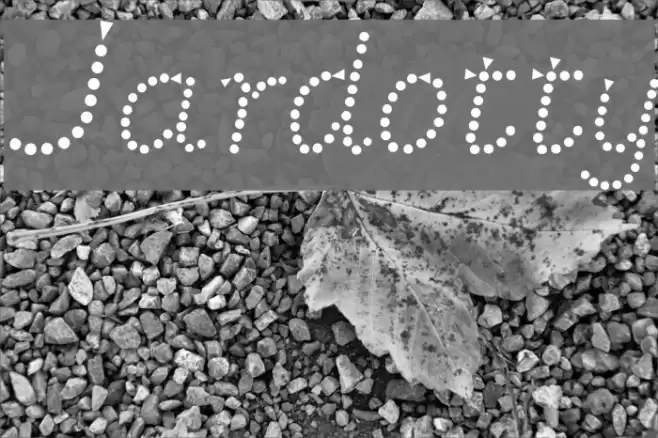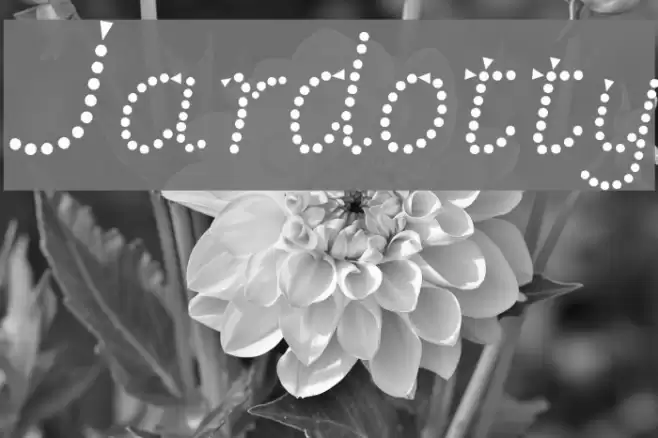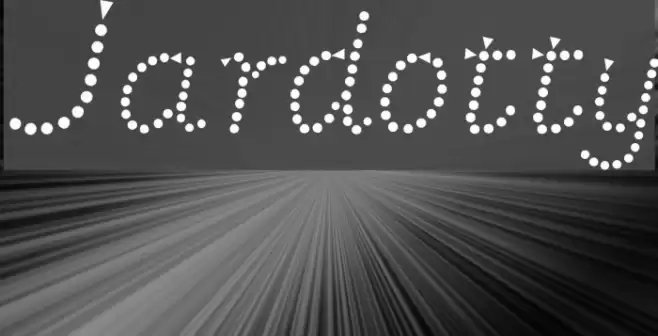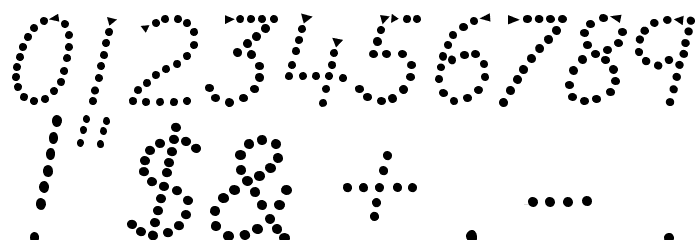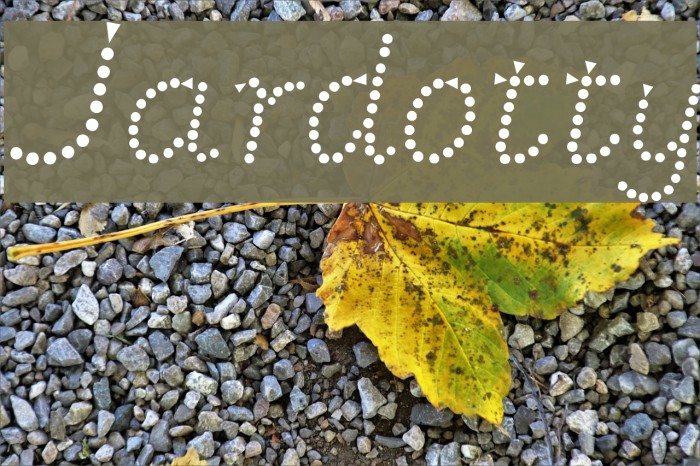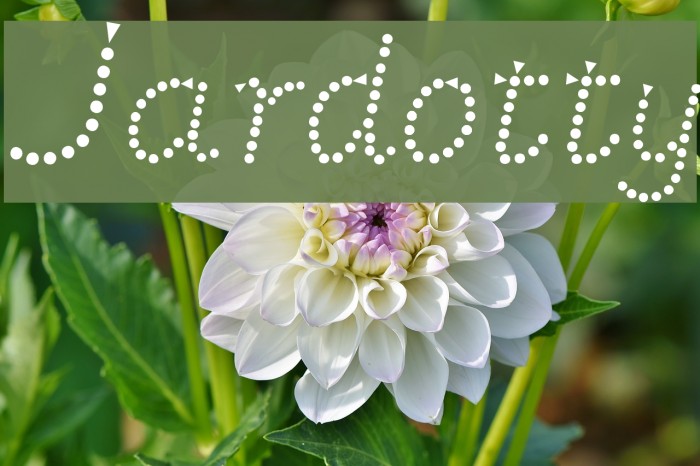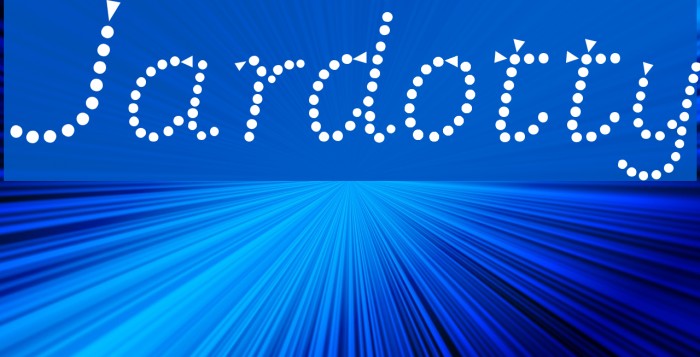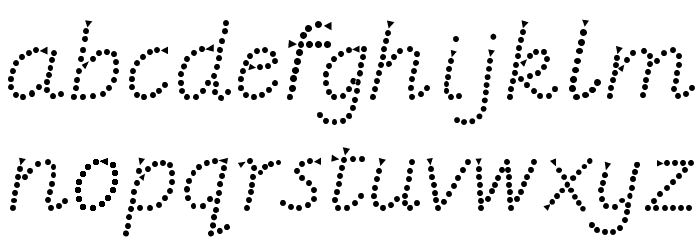
Jardotty Font
Jardotty Description
This font is a unique and playful design composed entirely of dots that form each character. The dotted style gives it a whimsical and informal appearance, making it stand out in creative projects. The uppercase and lowercase letters maintain a consistent dotted pattern, while the numbers and special characters follow the same playful theme. The spacing between the dots is uniform, creating a cohesive look across all characters. This font is ideal for projects that require a fun and lighthearted touch, such as children's books, party invitations, or playful branding.
A playful dotted font perfect for creative and informal designs from Uncategorized fonts.
- Proposed Projects: Ideal for children's books, party invitations, playful branding, and creative posters.
- Overall Style: Playful, Whimsical
- Use Case: Headlines, Logos, Creative projects